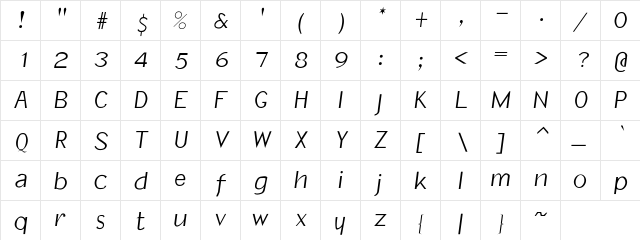
Slateron Regular
Design Context for Slateron Typeface
Slateron offers clean, dependable letterforms without strong stylistic allegiance, making it a practical choice for designers who need flexibility.